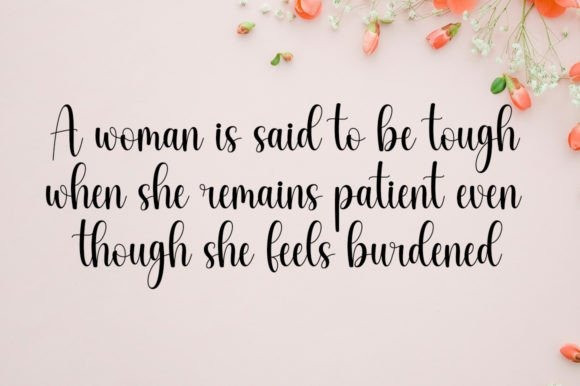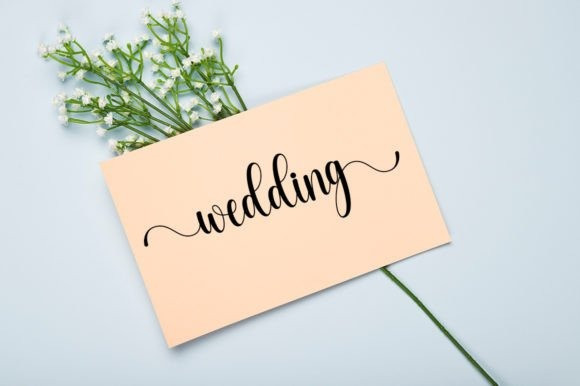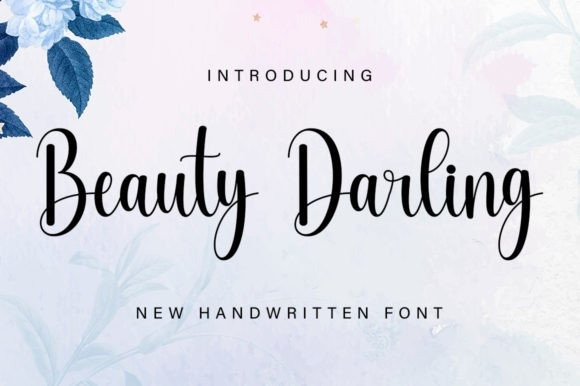
Beauty Darling Font
Beauty Darling Font is a beautiful handwritten font perfect for wall displays, wedding invitations, social media posts, logos, advertisements, product packaging, product designs, labels, photography, watermarks, invitations, stationery, and any project that requires handwritten taste.